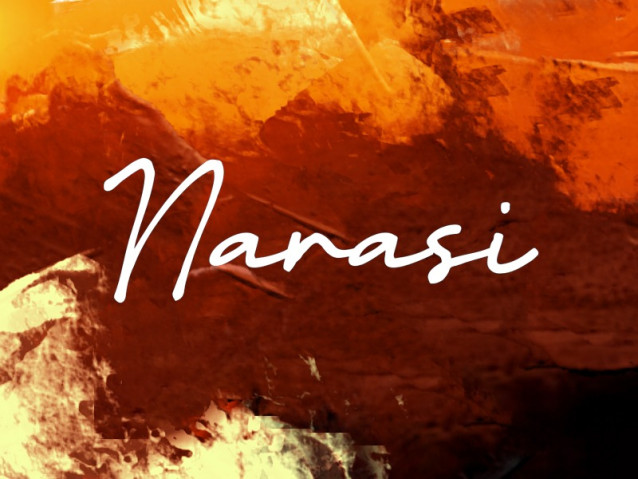
Narasi Font
Narasi Font is a graceful handwritten-style font that conveys elegance, softness, and a personal touch. With its flowing strokes and natural curves, the font brings a sense of warmth and sophistication, making it ideal for logos, branding, packaging, and creative designs that seek a refined yet friendly identity.